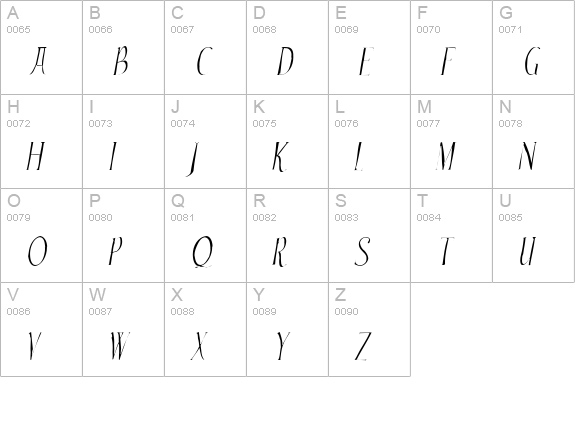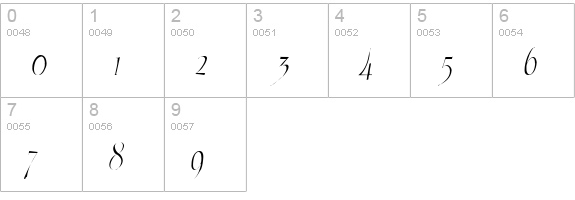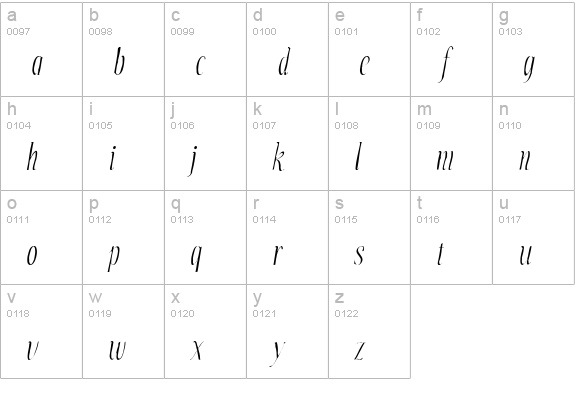
Echelon Gaunt Italic is a distinctive, italic variant in the Echelon typeface family \xE2\x80\x94 well suited to design and typography projects.
Echelon Gaunt Italic font exudes elegance and sophistication with its sleek, slender design. The italicized style adds a touch of grace and fluidity to any text, making it perfect for projects that require a touch of finesse. Whether you're designing invitations, creating branding materials, or crafting editorial layouts, Echelon Gaunt Italic font is sure to make a statement. The best part? This exquisite font is available for free download at FontsMarket.com. Embrace the beauty and versatility of Echelon Gaunt Italic font in your next design project and watch as it elevates your work to new heights.